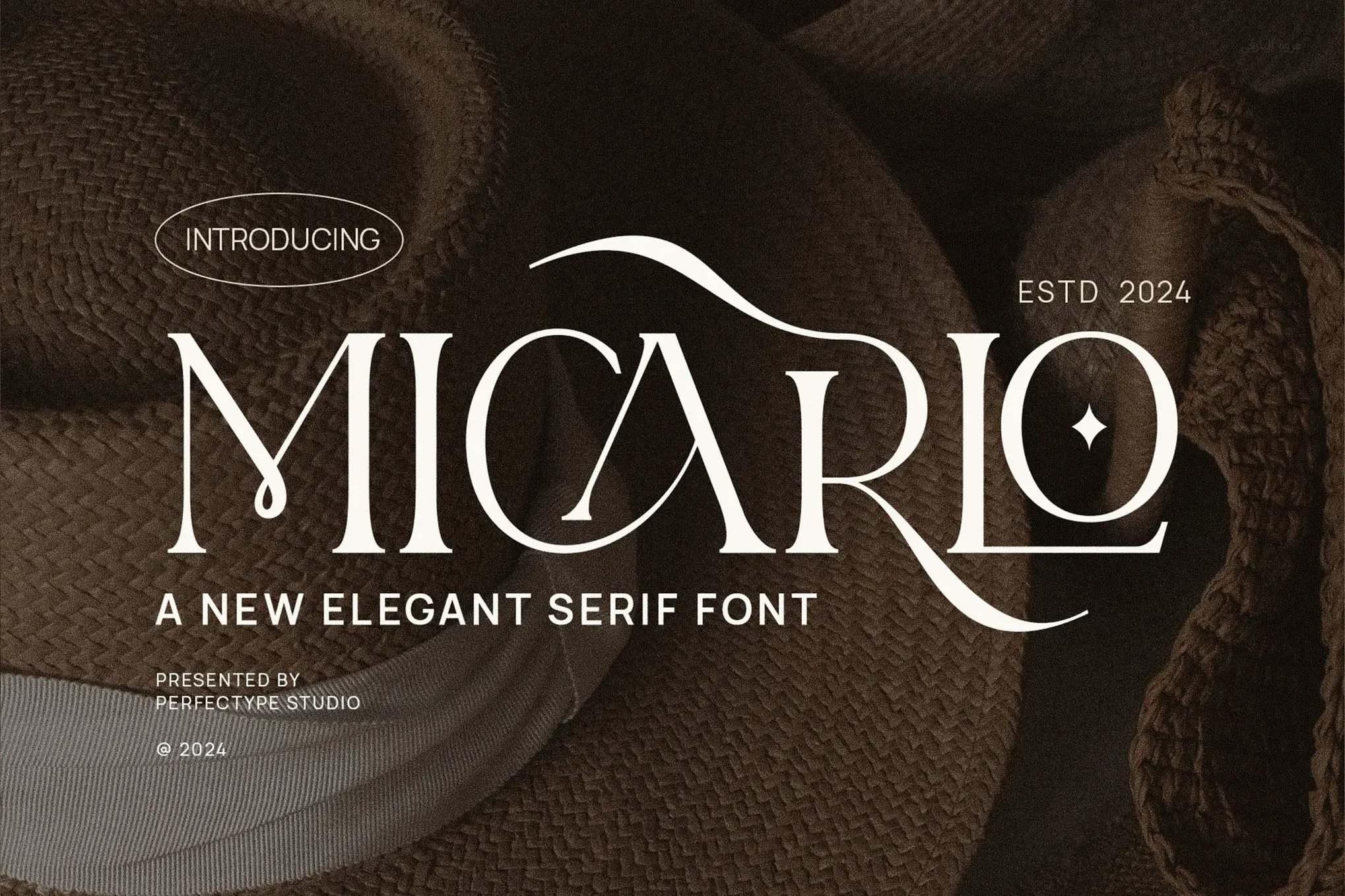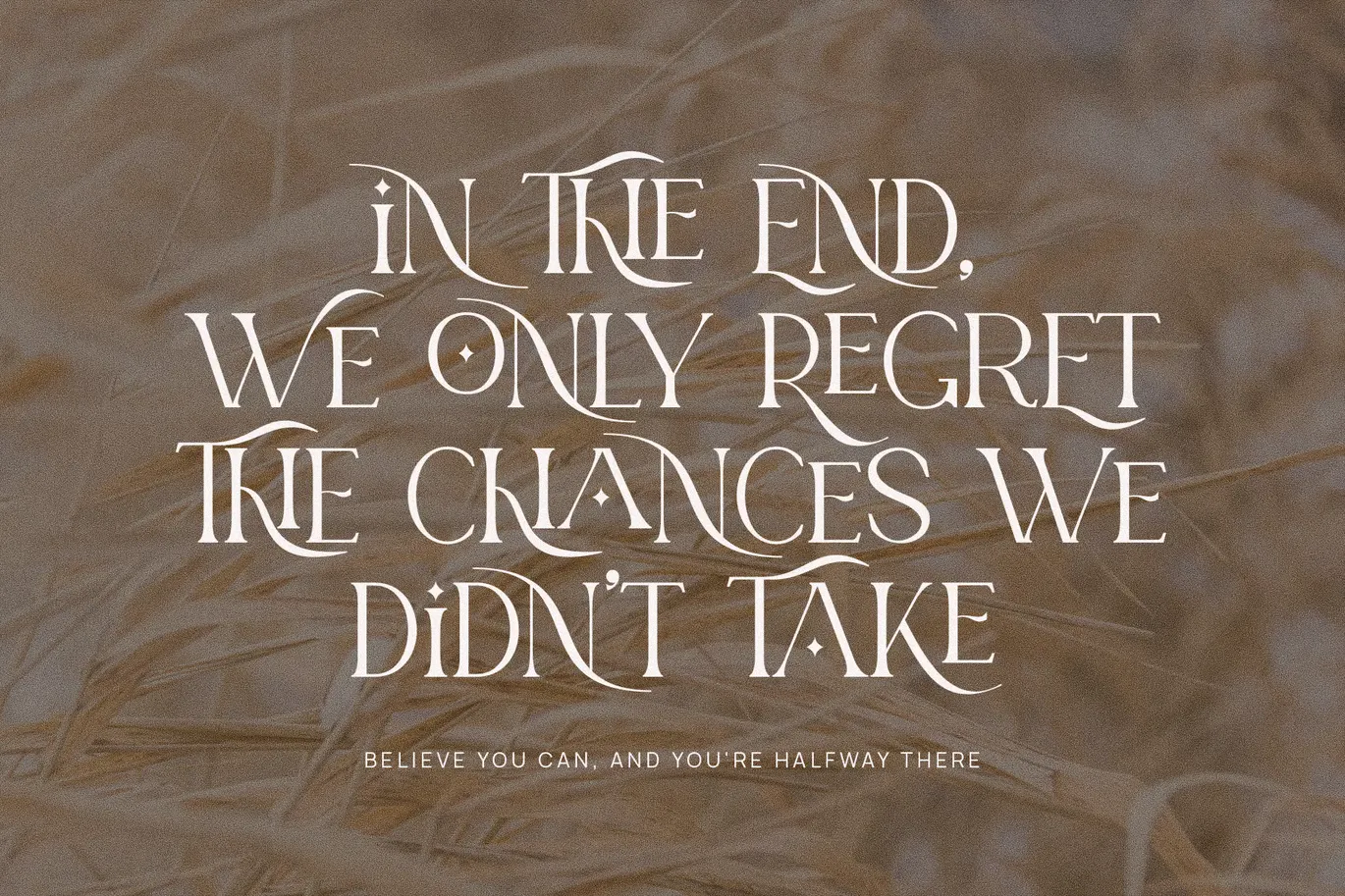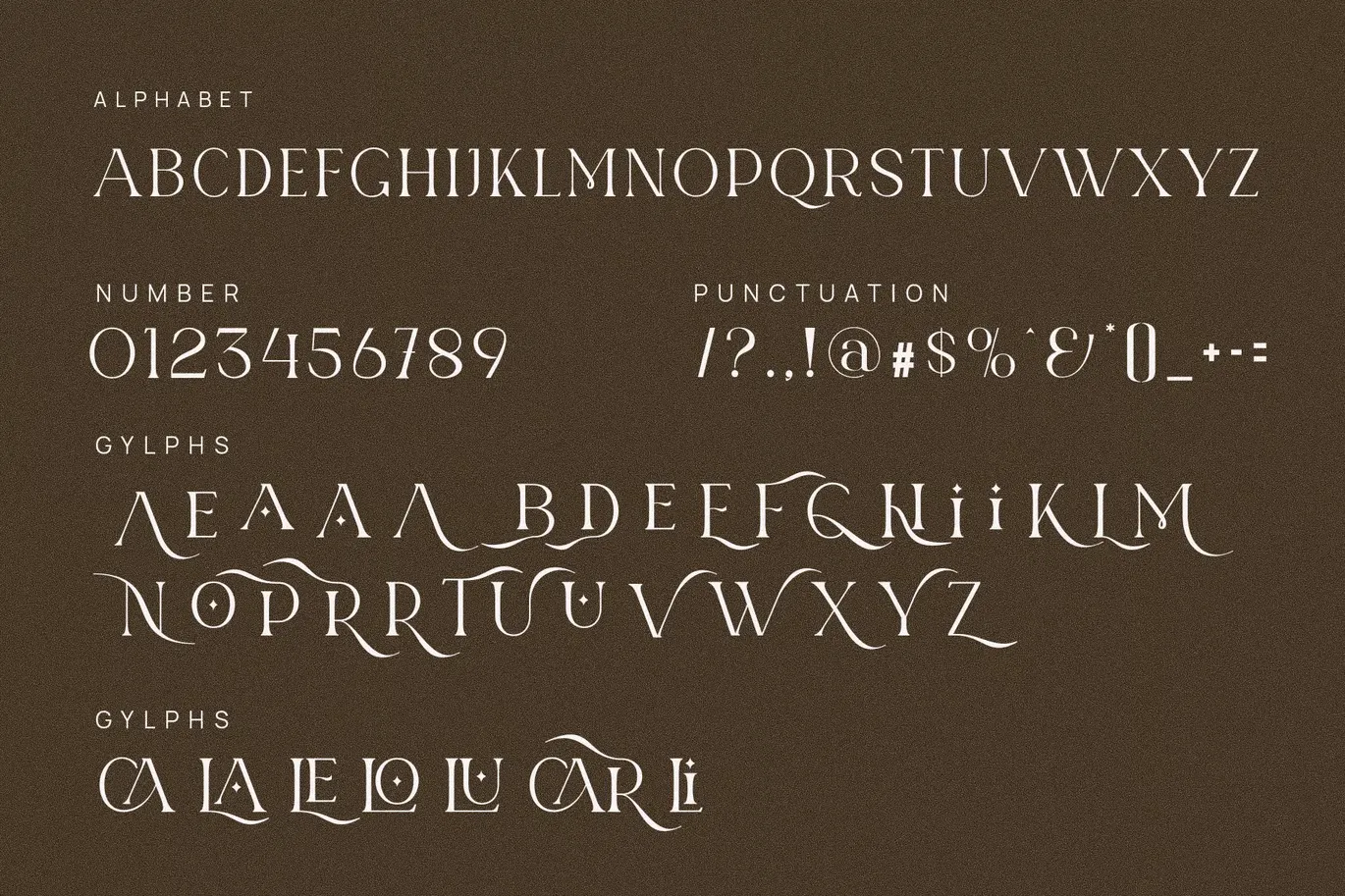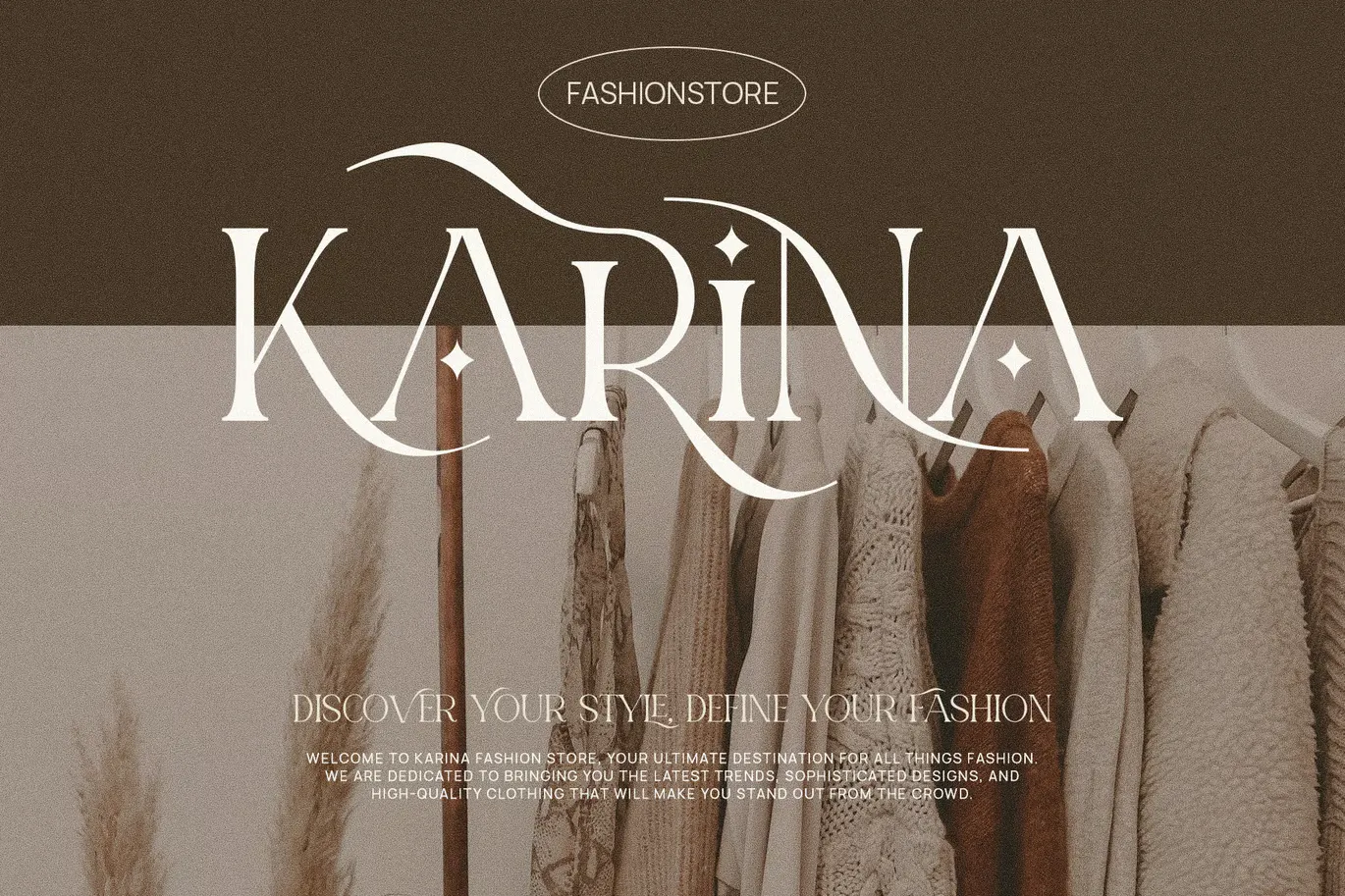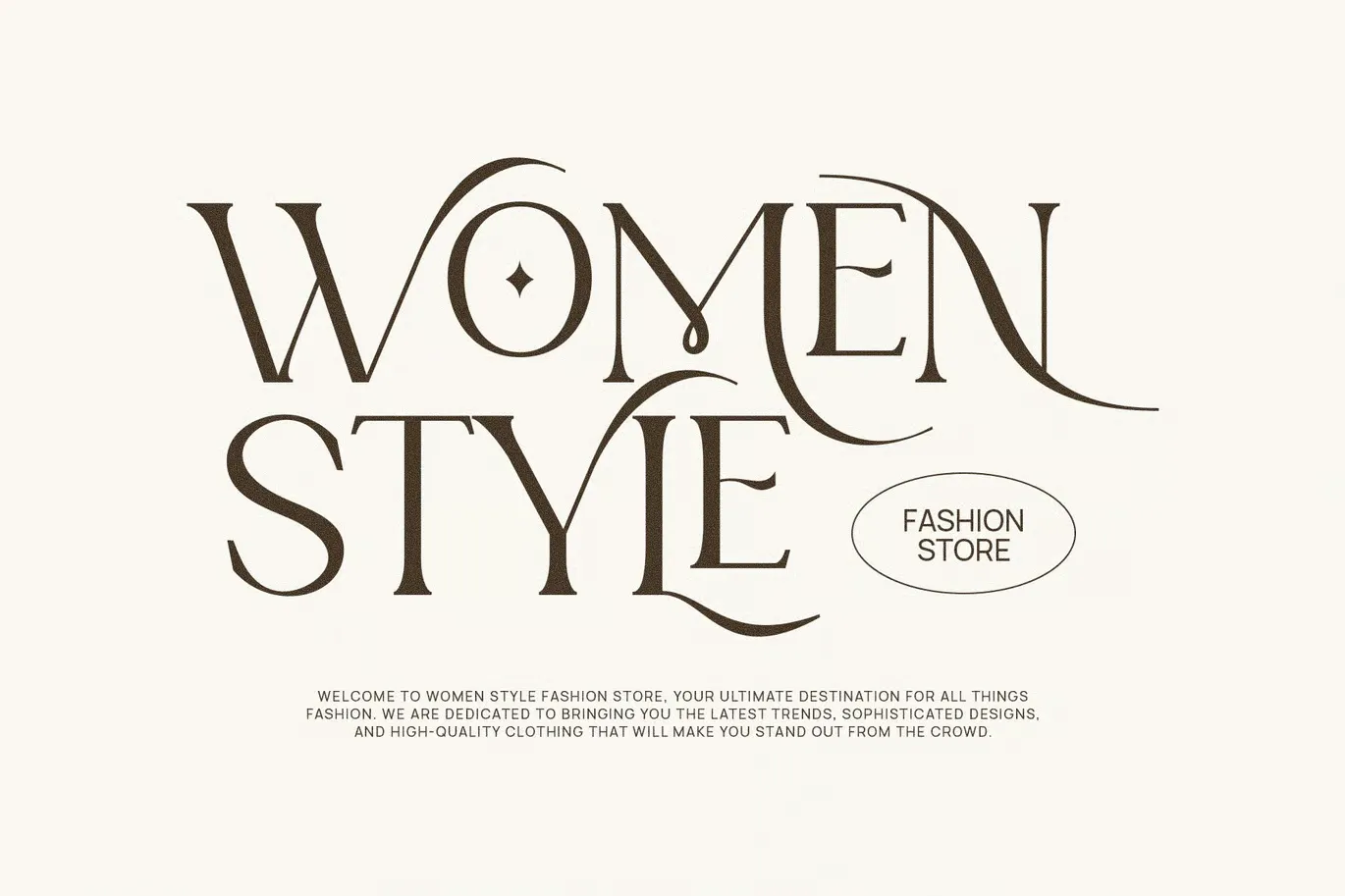
About Micarlo Font
The Type and The Designer
Micarlo is an elegant serif font designed by Perfectype, and it sits right between classic and modern. The typeface carries an old-world charm, but the lines are clean and polished, making it ideal for today’s design needs.
You can tell care went into every glyph. The letterforms are thoughtfully spaced, and the ligatures blend smoothly without breaking flow. Micarlo isn’t just another decorative font. It has structure. That makes it usable in real work, not just for display.
It belongs to the elegant ligature serif font typeface category. That may sound niche, but it has wide appeal. If you’re after something with personality that still fits in a modern layout, this font does the job. It’s been used in everything from wedding designs to stationery, from books to branding projects.
The type has enough clarity for long text blocks and the character to stand out in headers. Its readability and style make it ideal for product designs, photography watermarks, and even magazine spreads. It’s a font you don’t just use. You remember it.
Features of Micarlo Font
Micarlo Font blends elegance with versatility. It’s a serif font with a modern twist. The glyphs are soft but firm, with fine detailing that stands out in larger sizes and stays legible in smaller formats.
One thing I noticed fast was its high readability. Whether you’re using it for a book, label, or social media post, the font stays clean and sharp. The spacing is just right, and the ligature options add a bit of class without making the text hard to follow.
The font includes a full set of characters and decorative alternates. It comes ready for creative layouts like wedding invitations, magazine pages, and luxury product packaging. The structure is polished, not fragile, and works on tools like Canva or Adobe apps.
Its style fits branding projects where the tone needs to feel both refined and fresh. I’ve used it in watermarks, advertisements, and on stationery materials, and it always holds up.
Micarlo isn’t just a pretty font. It’s practical, classy, and built for professionals who want that perfect mix of design and function.
Micarlo Font works across so many platforms and styles. I’ve tested it on logos, wedding invitations, product packaging, and social media posts. In each case, it delivered a sharp, polished finish.
Because it’s a versatile typeface, it adapts well to both text-heavy projects and minimal layouts. I found it especially useful on branding materials like presentation decks, magazine spreads, and elegant product labels.
The font performs well on both print and digital. On mobile, it stays legible even in smaller sizes. On larger canvases like banners or cover pages, it makes an impression. The serif detailing gives it an upscale look, and the ligatures add that luxury feel.
Whether you’re working in Canva, Photoshop, or a layout program, the font integrates cleanly. You don’t need to spend hours tweaking letter spacing or line height.
If you need a font for social media, branding, or creative invitations, Micarlo is a solid choice. It fits everything from modern to vintage aesthetics, and that makes it a valuable resource for any designer.